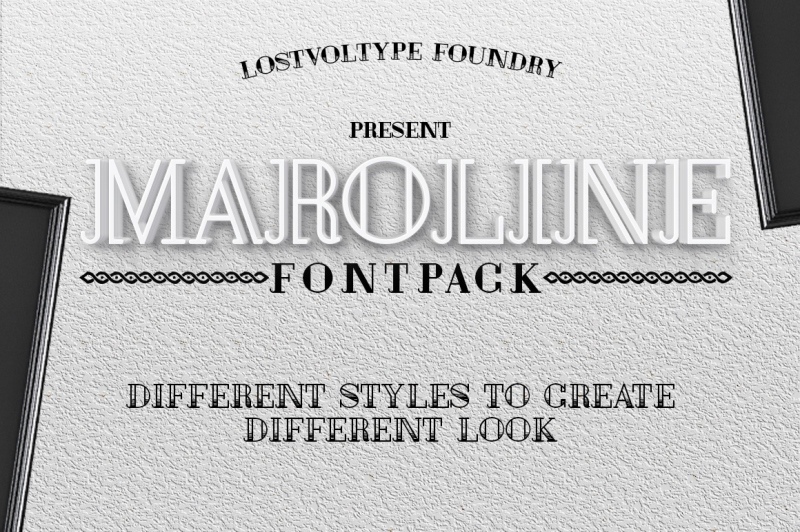
Maroline Fontpack
Maroline Fontpack is perfect for feminine branding projects, beauty salon marketing, fashion boutique communications, wedding service design, lifestyle blog typography, cosmetics packaging, romantic advertising campaigns, and elegant social media graphics. This graceful typeface collection works wonderfully in both digital applications and print media where feminine elegance and sophisticated charm are essential design considerations.
What makes Maroline Fontpack so exciting is its exquisite collection of complementary typefaces that perfectly capture modern femininity through elegant letterforms designed to communicate grace, sophistication, and contemporary beauty standards. The fontpack features flowing characters with delicate curves, refined proportions, and stylish details that create an atmosphere of luxury and feminine appeal. Its versatile personality and fashion-forward aesthetic make it ideal for brands seeking to connect with female audiences while communicating elegance, quality, and aspirational lifestyle values across diverse beauty and fashion applications.
The Maroline Fontpack includes multiple coordinated font families with various weights and styles, along with script versions and decorative elements. Each typeface maintains the collection's feminine character while offering comprehensive character sets including elegant numerals, beauty-focused punctuation marks, and special symbols designed to enhance feminine communications and luxury beauty branding efforts across international markets.
This extraordinary fontpack represents the perfect convergence of feminine aesthetics and professional typography for beauty and lifestyle industries. Whether you're developing cosmetics brand identities, creating fashion magazine layouts, or designing wedding service materials, Maroline Fontpack Free Download delivers the sophisticated femininity and versatility needed to captivate discerning female audiences. The pack's beauty-focused design makes it particularly effective for beauty salons, fashion retailers, wedding planners, and lifestyle brands targeting sophisticated women who appreciate elegance and quality.
The meticulously crafted feminine details and optimized performance in Maroline Fontpack ensure stunning visual appeal while maintaining excellent readability across all beauty and fashion applications. Its elegant versatility allows seamless coordination between different typefaces within projects, making it an invaluable resource for designers creating cohesive feminine brand experiences that resonate with audiences seeking beauty, sophistication, and contemporary elegance.